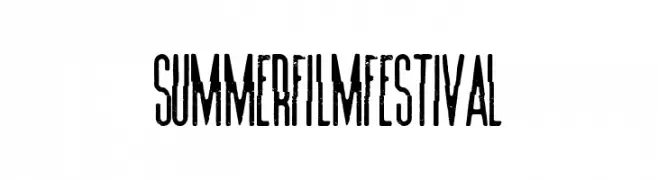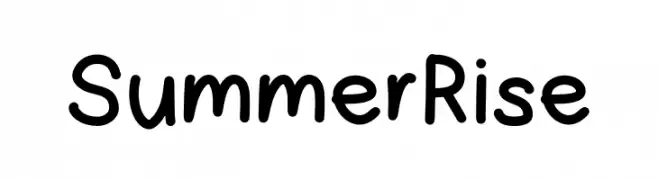
A bold, flowing script font with a modern, decorative style.
( Fonts by Md Shohail Bhuian )
A playful, bold, and hand-drawn style with rounded edges.
( Fonts by Muhammad Yafinuha )
A bold, rounded font with a playful and bubbly style.
( Fonts by Wellscript Studio )
A playful, bold, hand-drawn font with a whimsical and casual style.
( Fonts by Khurasan )
A bold, playful font with a hand-drawn, outlined style.
A bold, playful font with thick, rounded characters and a retro vibe.
( Fonts by Storytype Studio )
A playful, bold font with rounded, thick strokes and a whimsical, informal style.
( Fonts by Muhammad Afif )
A playful, bold typeface with rounded strokes and a hand-drawn feel.
( Fonts by Mr.Soon Design )
A playful, nature-inspired decorative font with bold, rounded letters filled with leaf patterns.
A distressed, vintage-style font with a tall, narrow design.